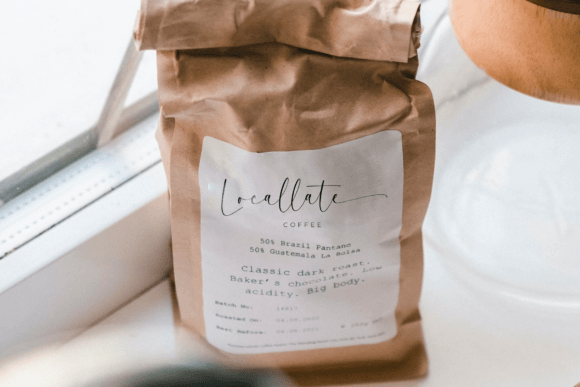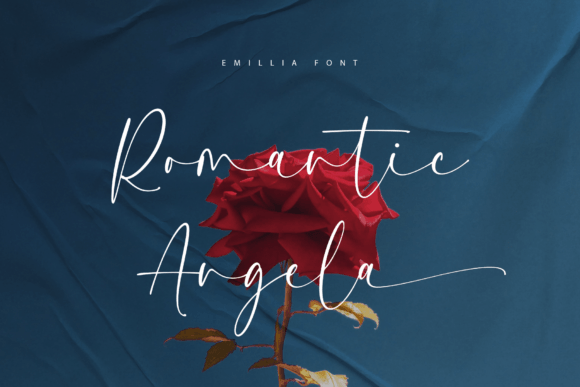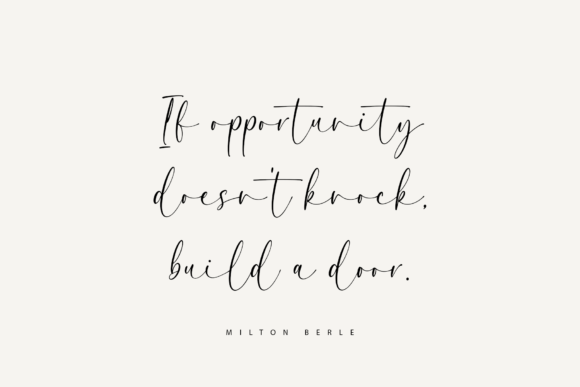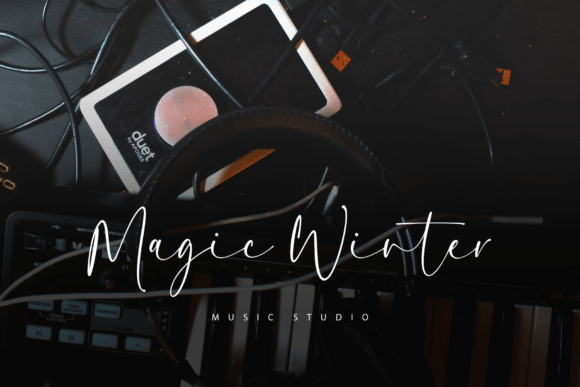
Emillia Font
Emillia is a chic and elegant calligraphy font that is perfect for any kind of design project such as wedding invitations, branding, poster, and much more. This font comes with a beautiful beginning and ending swash, fully uppercase and lowercase, number, and punctuation, and also comes with ligature. This font is PUA encoded which means you can access all of the amazing glyphs and ligatures with ease!